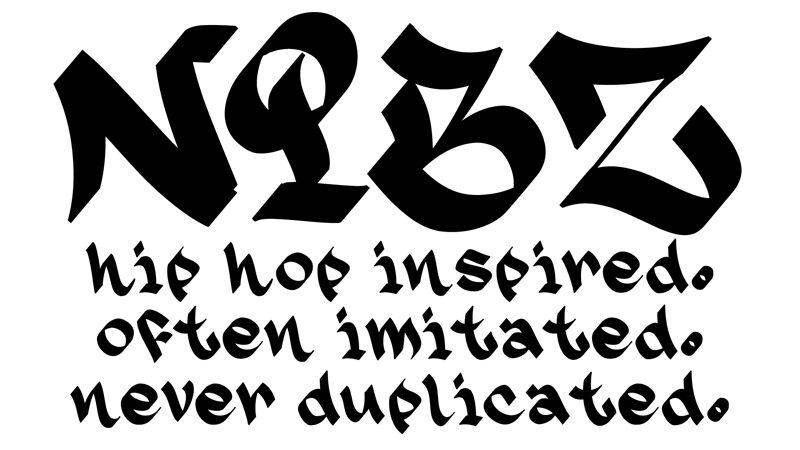
Nibz
Nibz font by Field 2 Design is a free graffiti display font that hits with chisel-cut swagger. Built like street calligraphy, its strokes snap from razor‑sharp wedges to thick, inky swells, carving bold silhouettes with a quick, slanted motion. Letters lock together with a compact rhythm, giving headlines punch without losing that hand-sprayed vibe.
Using Nibz, your visuals come loaded with urban energy—great for album art, streetwear logos, sneaker drops, event posters, YouTube thumbnails, sticker packs, and pop-up signage. This free font shines when set big with slightly tight tracking; pair it with a clean geometric sans for details to keep the message crisp.